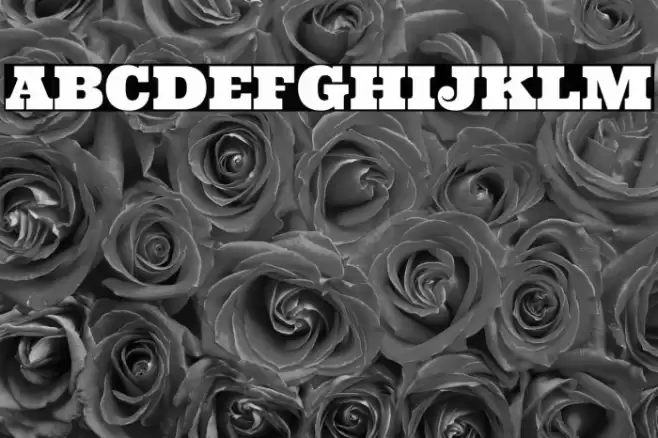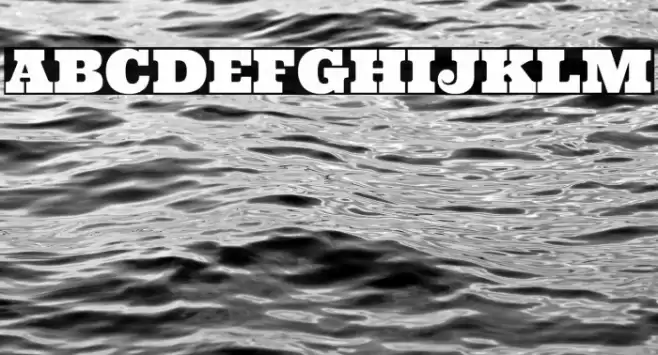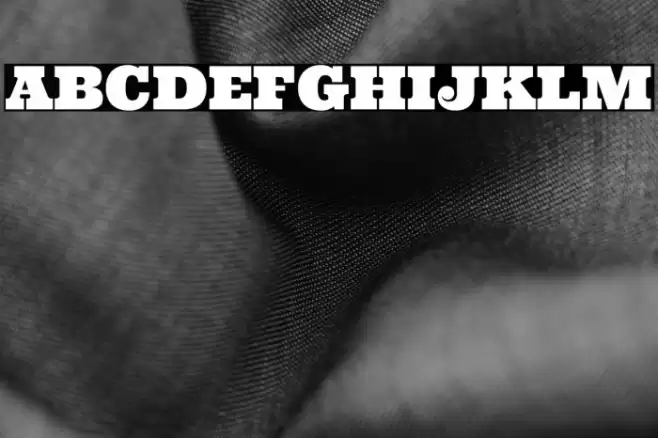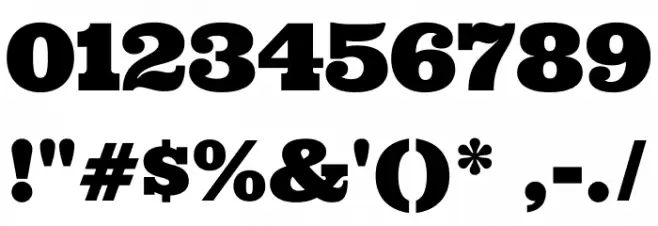
Ultra Font
Ultra Description
This font is characterized by its bold and impactful presence, featuring thick, slab-like serifs that give it a strong and authoritative appearance. The uppercase letters are robust and commanding, while the lowercase letters maintain a consistent weight, ensuring readability and balance. The numerals are equally bold, making them stand out prominently. Special characters are designed with the same boldness, ensuring they integrate seamlessly with the rest of the typeface. The overall design is reminiscent of vintage poster fonts, yet it maintains a modern edge, making it versatile for various applications.
A bold, slab serif font with a vintage yet modern appeal from Regular fonts.
- Font: Ultra
- Proposed Projects: Ideal for headlines, posters, branding, and any project requiring a strong visual impact.
- Overall Style: Vintage, Modern